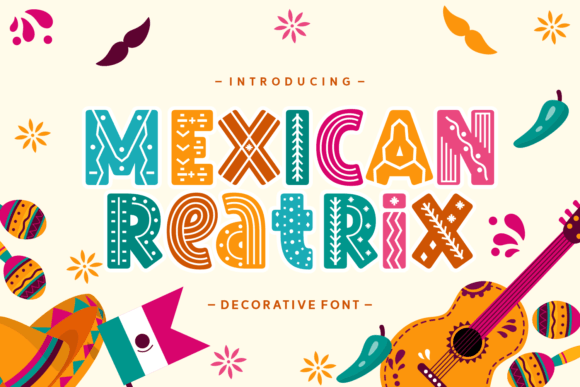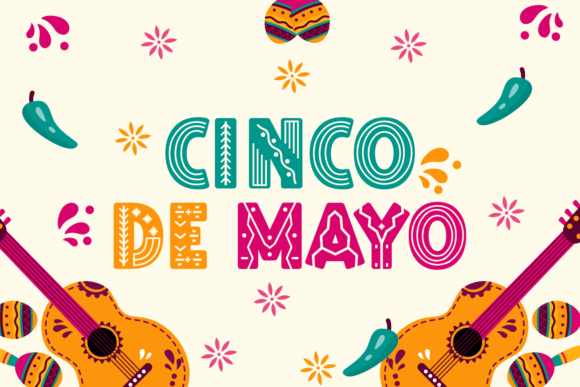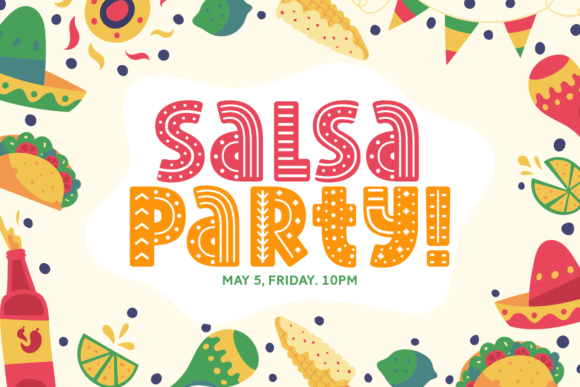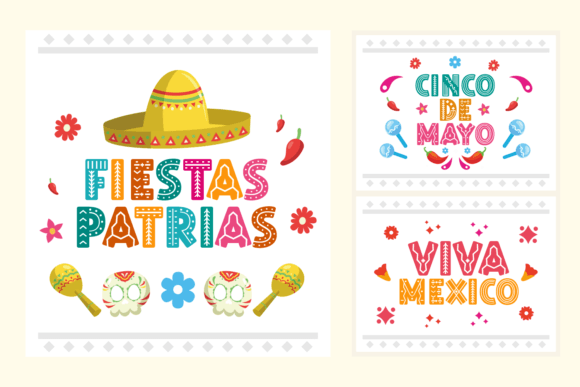
Mexican Reatrix Font
About the Mexican Reatrix Font
Add a touch of class to your work with the Mexican Reatrix Font, a truly exceptional typeface. Mexican Reatrix is a decorative font that will add a touch of celebration to any design. With its bold and vibrant lettering, this font is perfect for creating invitations, banners, and other designs for special occasions. Festive Flair features unique decorative elements that will make your designs stand out and leave a lasting impression.
Mexican Reatrix thrives in large-scale applications such as headlines, posters, and branding elements where its decorative nature commands attention. It’s ideal for projects needing a celebratory or festive feel, like invitations, event signage, or packaging for celebratory products. However, its highly decorative style is less suitable for body text or UI elements; the intricate details would be distracting and difficult to read at smaller sizes.
Its bold personality pairs well with clean, simple sans-serif fonts like Open Sans or Lato for a balanced contrast. For a more playful feel, consider pairing it with a rounded geometric sans-serif. A classic serif like Garamond or a script font with a less ornate style could also work, providing a sophisticated counterpoint to Mexican Reatrix’s vibrancy.
The font projects a bold, festive, and slightly playful personality, best suited for brands and projects that aim for a celebratory and memorable aesthetic. Avoid using it where readability and subtle elegance are paramount.
Mexican Reatrix Font Usage Examples
Mexican Reatrix Font Example